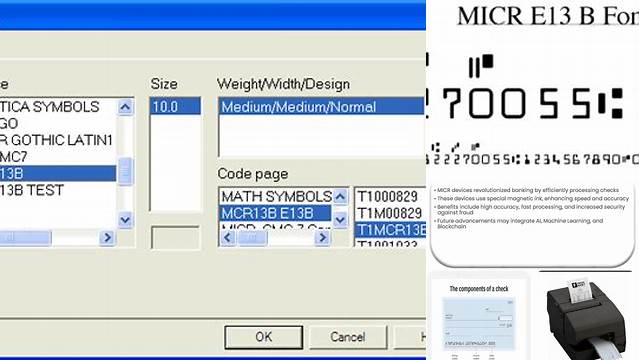
Alright folks, let's dive into the world of MICR fonts and how you can snag a free IDAutomation MICR font download. This guide is designed to be your one-stop shop, helping you understand everything from what MICR is to how you can implement it for your business. We'll cover the basics, the benefits, and the nitty-gritty of getting those special fonts onto your system. So, buckle up, grab a coffee, and let's get started! Magnetic Ink Character Recognition (MICR) is a special technology used primarily in the banking and financial industries. It allows machines to read and process checks quickly and accurately. The characters are printed with magnetic ink, and special readers can detect these characters even if they're covered with stamps, smudges, or other markings. The foundation of MICR is, of course, the fonts themselves, which are specifically designed for this purpose. IDAutomation is a well-known provider of MICR fonts, and they often offer free versions or trial downloads that can be incredibly helpful for businesses of all sizes. Getting access to these fonts can be a game-changer, allowing you to print professional-looking checks and other financial documents in-house. This can save you money on printing costs and give you more control over your financial processes. We’re talking about a simple and cost-effective solution that can streamline your operations. Let's get into the details, shall we?
What Exactly is MICR and Why Does It Matter?
So, what's the deal with MICR anyway? Simply put, it's a technology that allows computers to read characters printed with magnetic ink. These characters are typically used on checks and other financial documents to provide essential information like the bank's routing number, the account number, and the check number itself. The magnetic ink ensures that these characters can be read reliably, even if the document gets a little beat up in the process. This is super important because it allows banks and other financial institutions to process millions of checks every day quickly and accurately. Without MICR, imagine how long it would take to manually enter all that information! The characters themselves are designed in a specific way to be easily recognizable by MICR readers. The fonts have unique shapes and features that make them distinct from regular fonts. This is crucial for ensuring the reliability of the reading process. The use of magnetic ink also helps to prevent fraud. The ink is difficult to replicate, and the special readers can detect if the ink is authentic. This adds an extra layer of security to financial transactions. By using MICR, businesses can save time and money, reduce errors, and improve the overall efficiency of their financial operations. Think about it: fewer errors mean fewer headaches and more peace of mind. It's a win-win for everyone involved! This technology is a core component of the financial system, allowing for rapid and secure processing of financial documents. It's not just about the technology; it's about the reliability and security it provides. Now, let's explore how you can get your hands on these fonts.
The Core Components of MICR Technology
To fully understand MICR, let's break down its key components. First up, you've got the MICR font itself, which is specifically designed for magnetic ink character recognition. These fonts have unique shapes, such as the E-13B font, that are easily recognizable by MICR readers. Next, we have the magnetic ink, which contains iron oxide particles. This is what makes the characters readable by the readers. This special ink is critical because it allows the characters to be read even if they're partially obscured or smudged. Think about it: checks go through a lot! Lastly, we have the MICR reader, which uses magnetic sensors to detect the characters printed with magnetic ink. This reader quickly and accurately processes the information on financial documents. The MICR reader is the heart of the system, allowing the automation of financial transactions. Each component plays a crucial role, working in harmony to ensure accurate and efficient processing. Without any one of these components, the system falls apart. It’s a clever interplay of technology and design that keeps the financial world running smoothly. Understanding these components provides a foundation for appreciating the significance of MICR technology. So, whether you're a business owner, accountant, or simply curious, knowing these parts helps you understand the process behind every check. This understanding emphasizes the importance of using the correct font and magnetic ink. Make sure you use the right stuff!